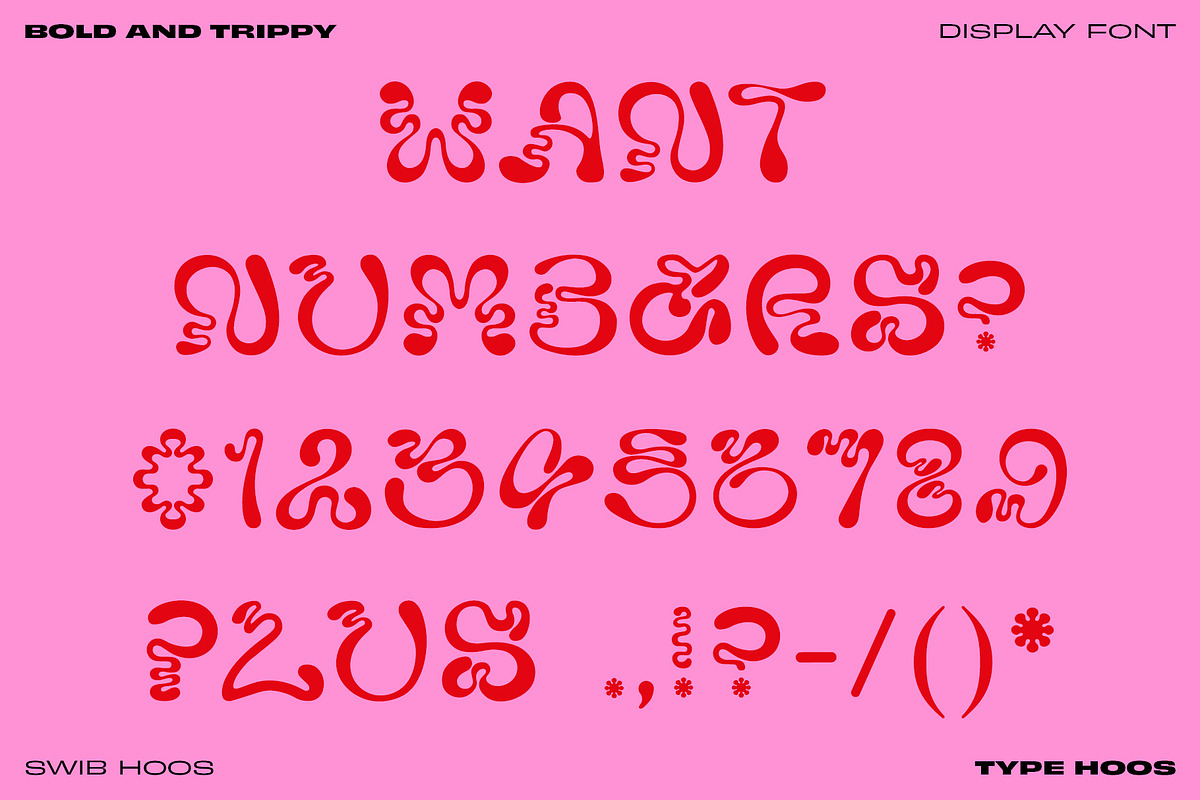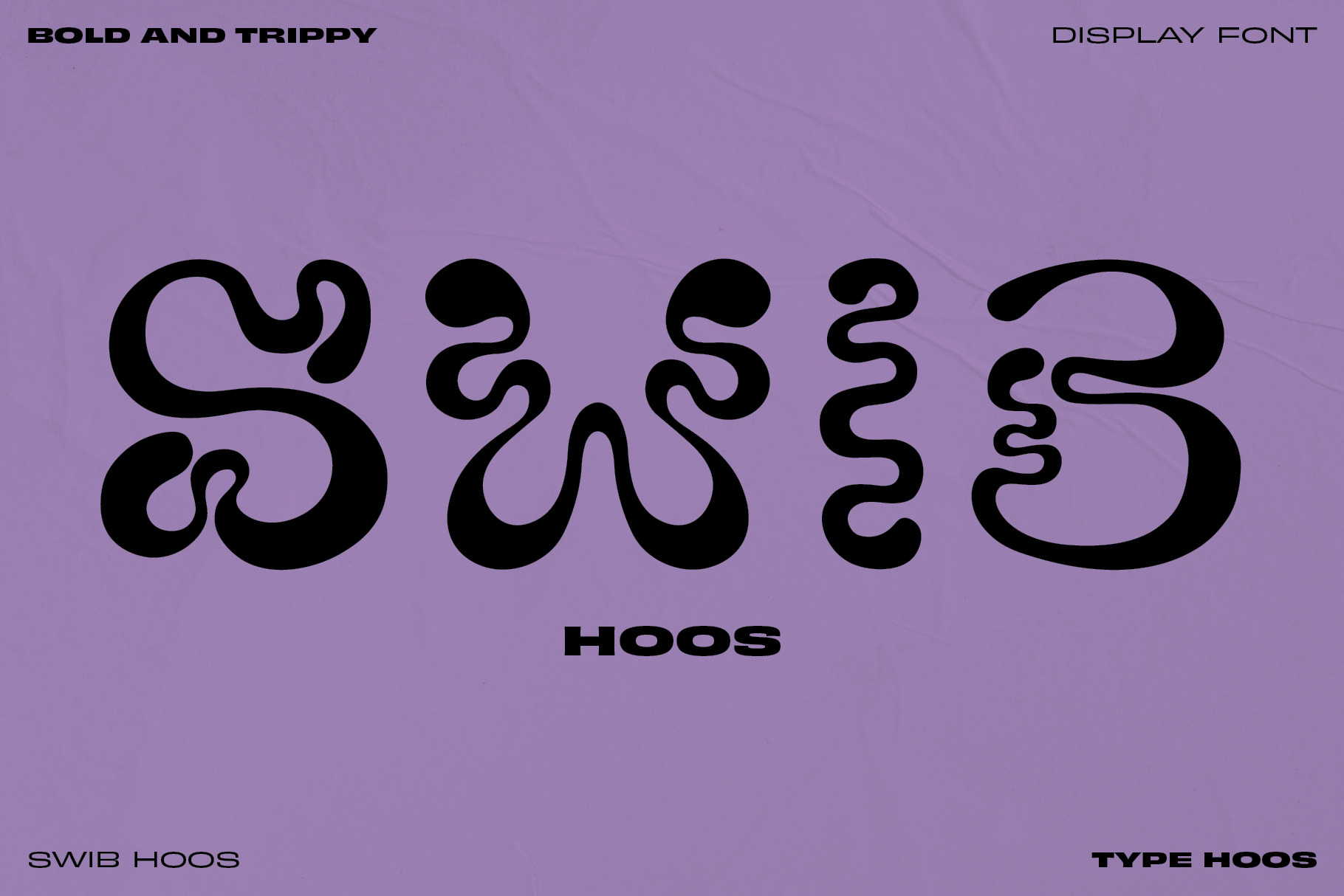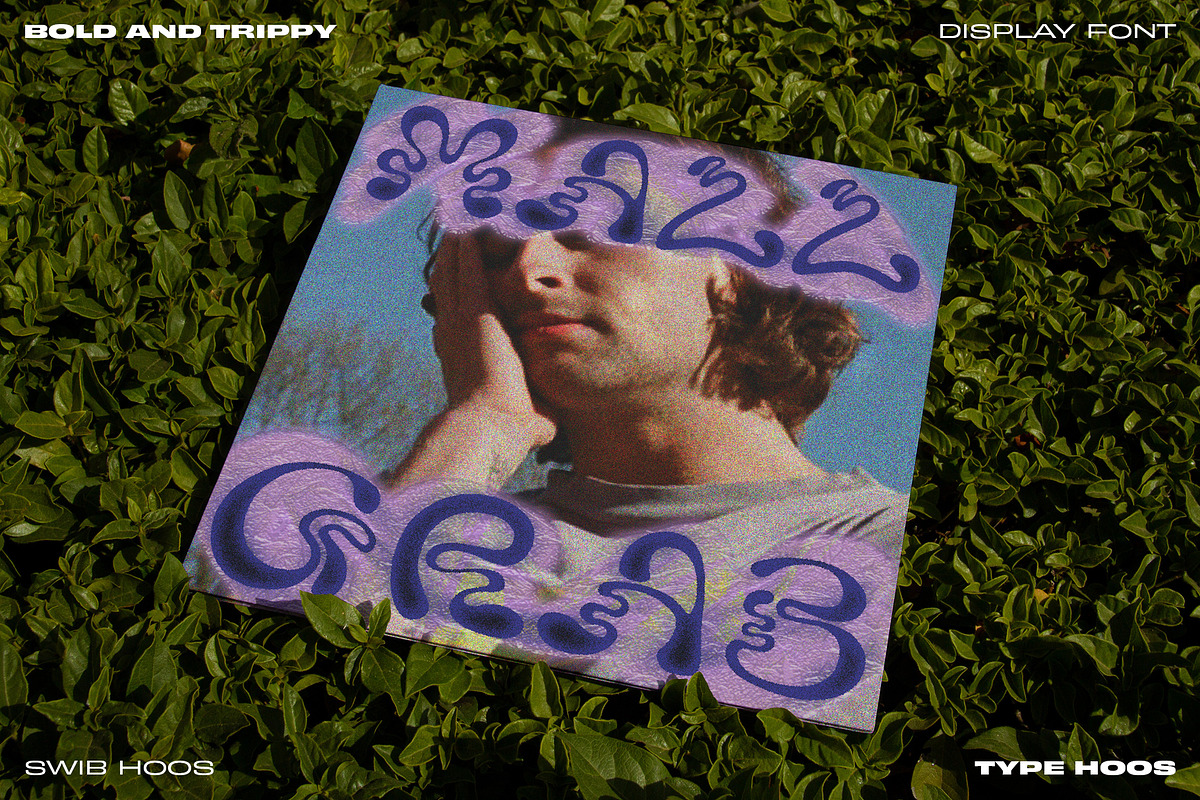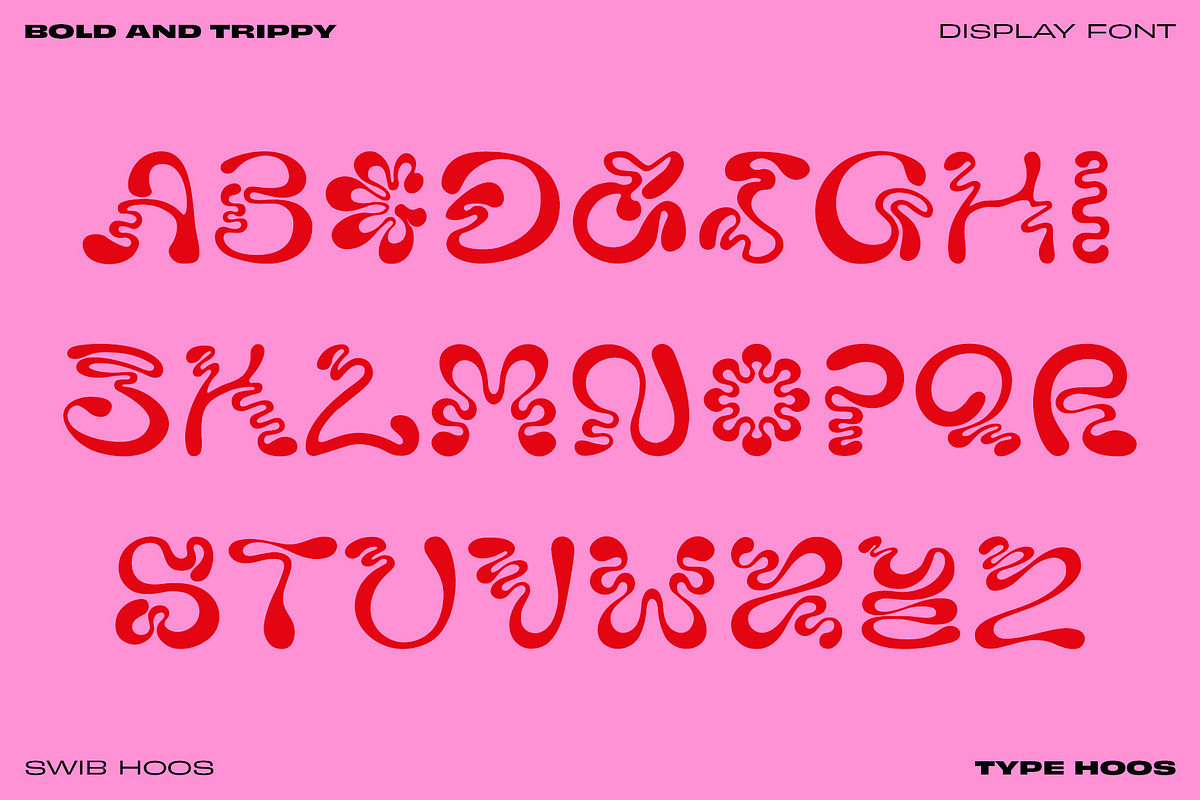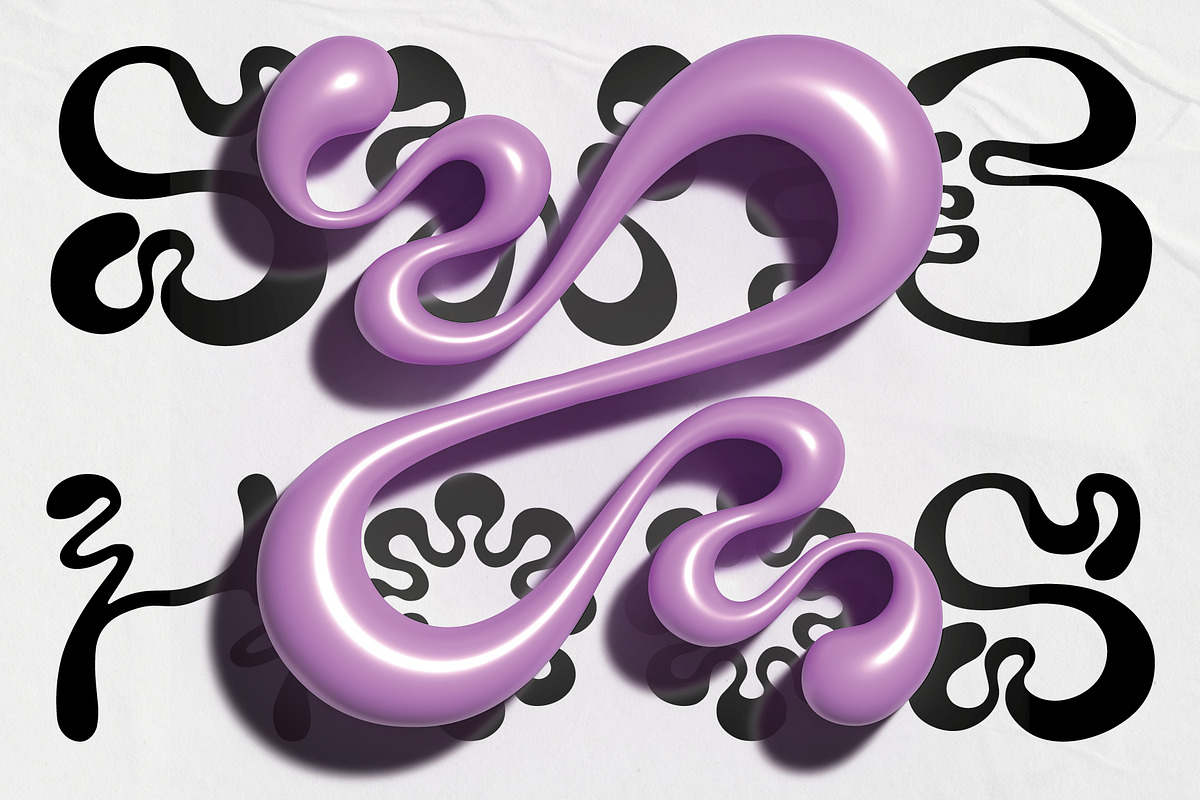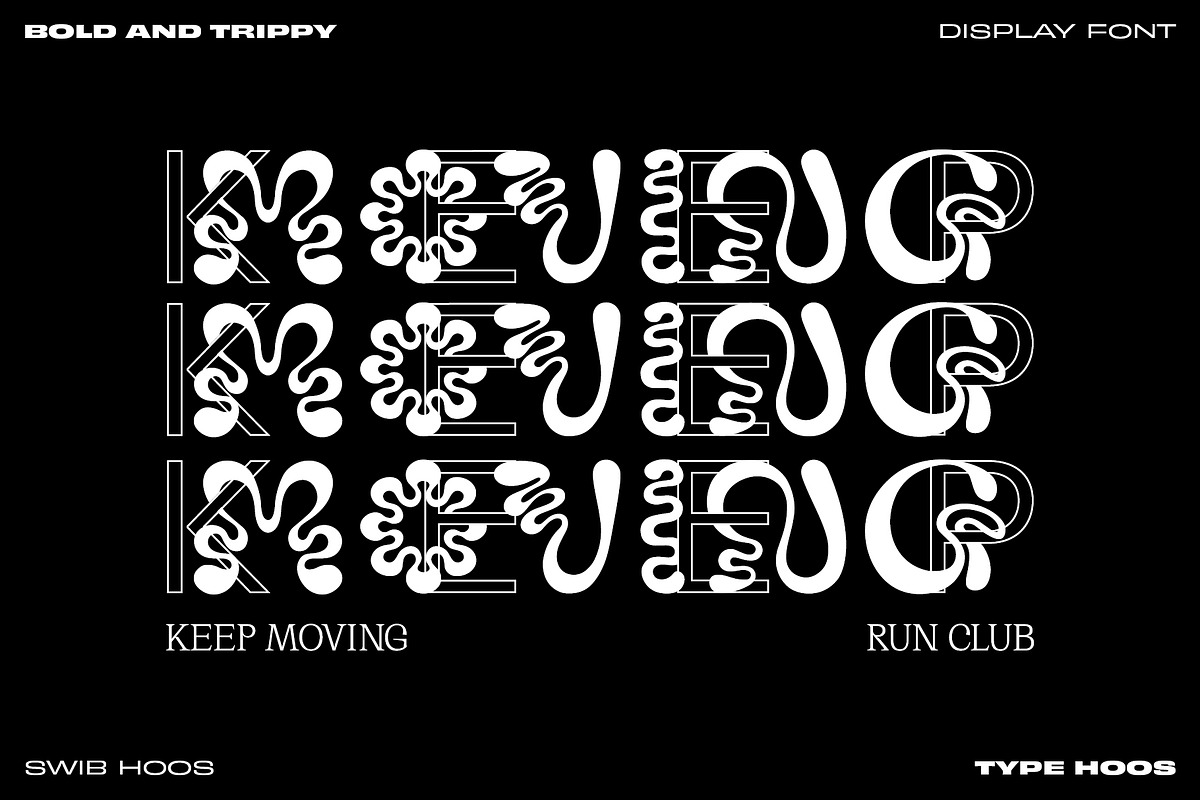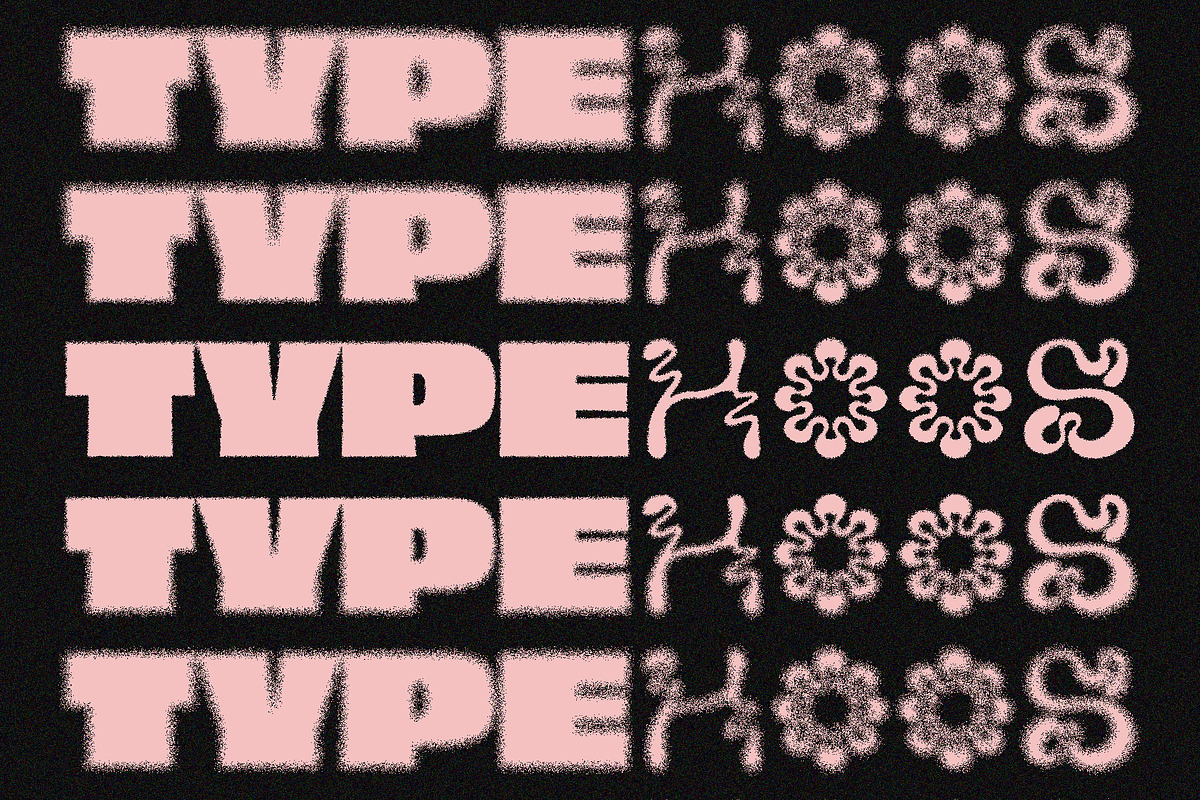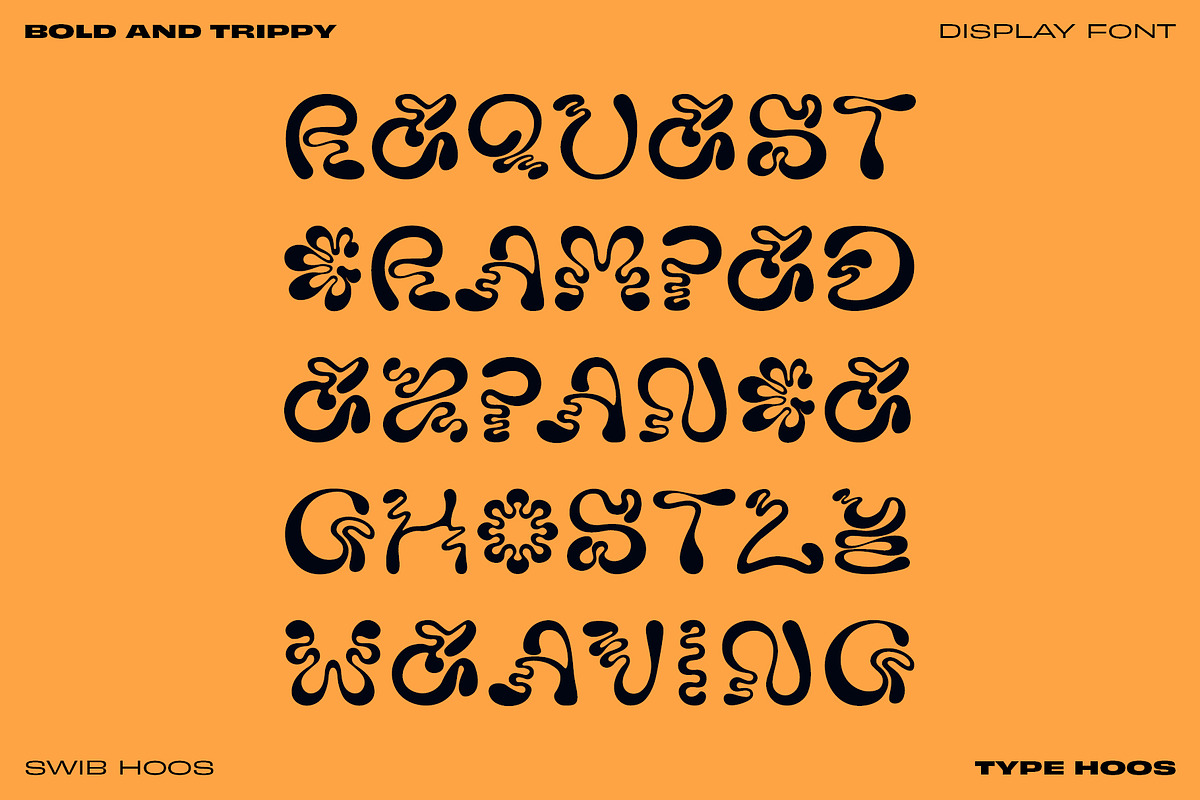
Swib Hoos - Display Font
A hand drawn font, brought to life over the course of the 36 Days of Type challenge. The font is created in an almost endless flow, most letters were drawn as a continuous line. This encouraged creativity and experimentation in the process.
As a display font its sole purpose is to be eye-catching. Encouraging the viewer to study the text rather than give a casual glance. Perfect for Branding, Large Scale Posters, Album and Book Covers, Clothing or Packaging. Endless experimental possibilities.